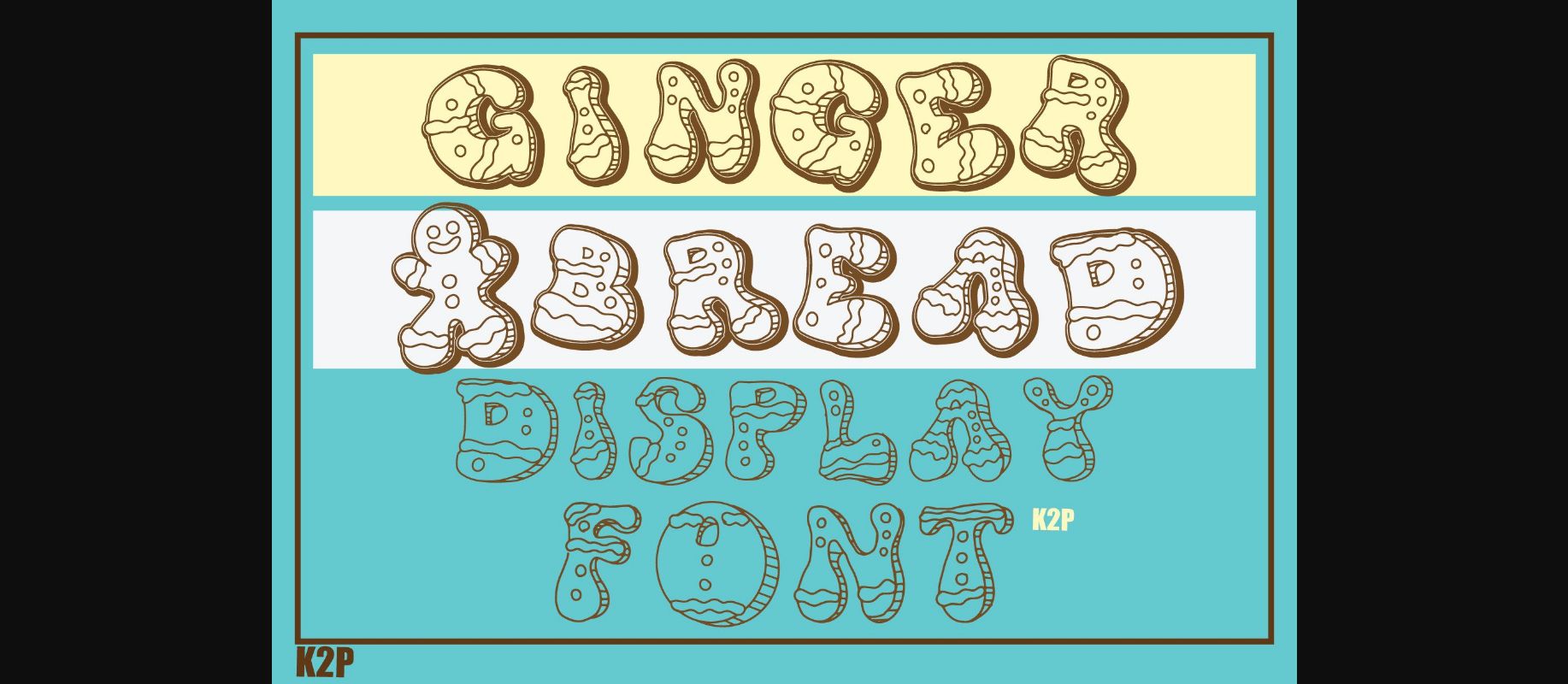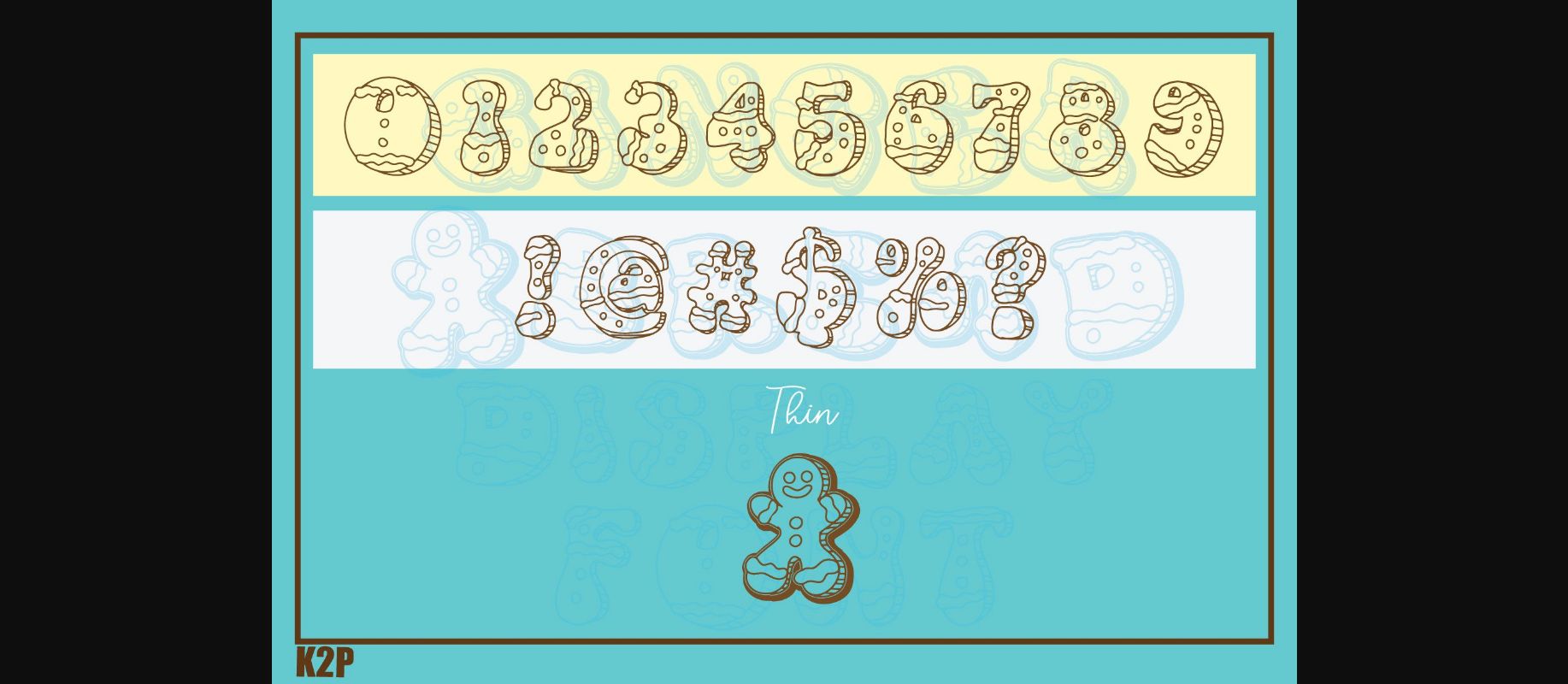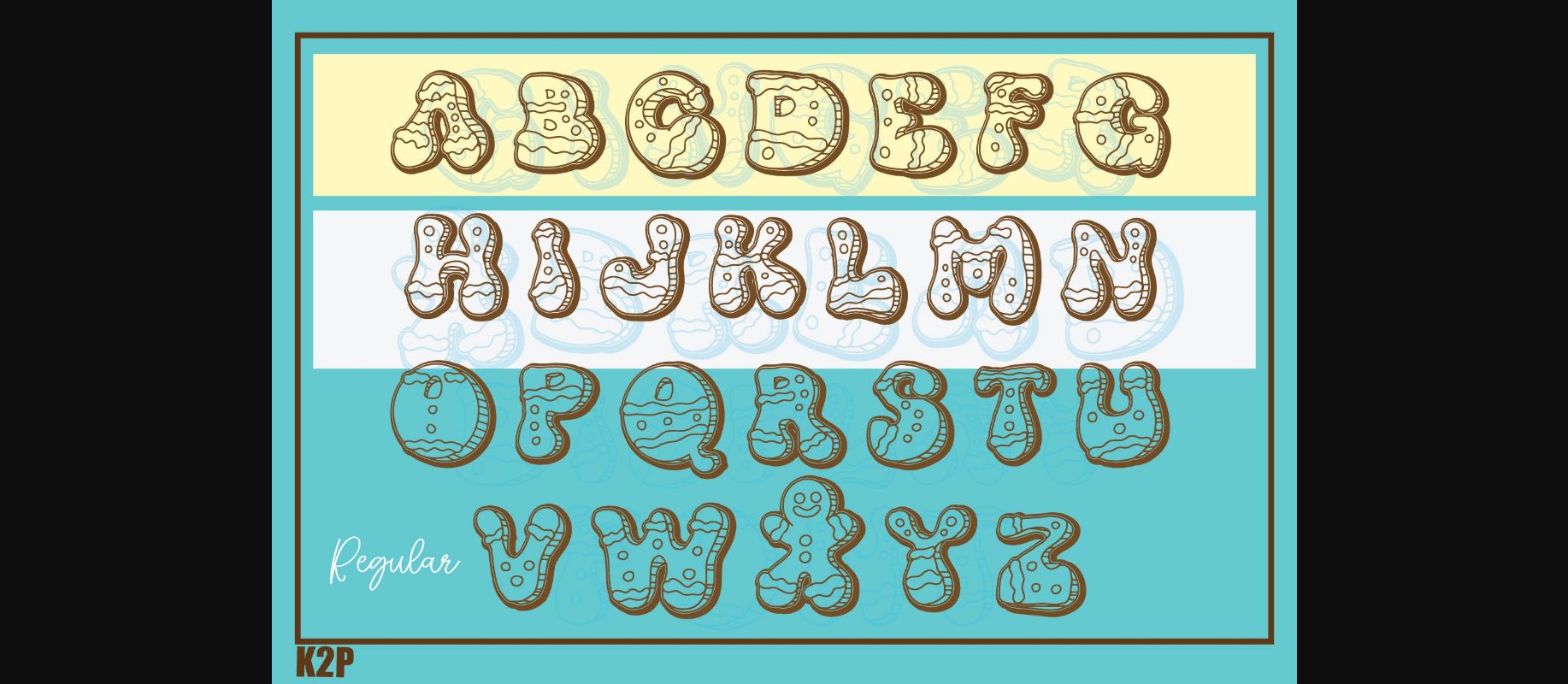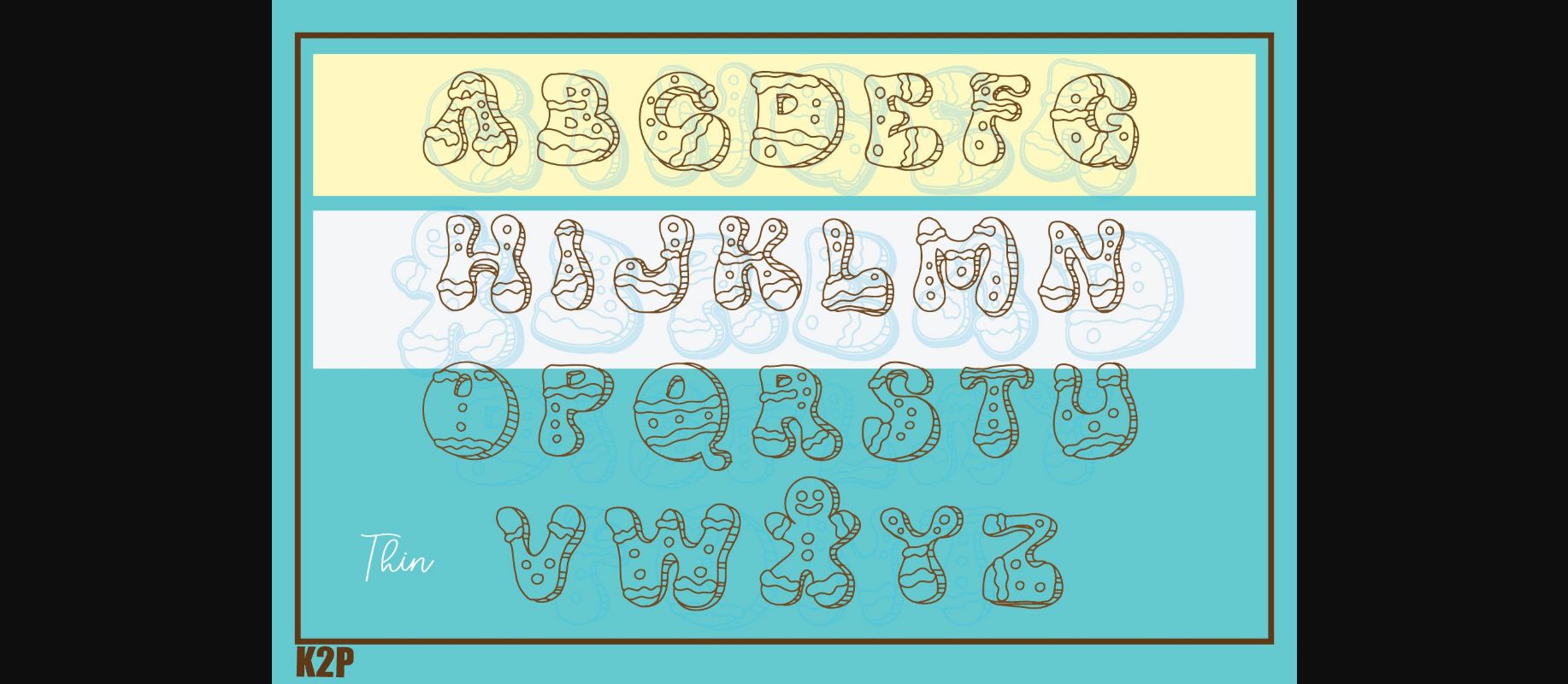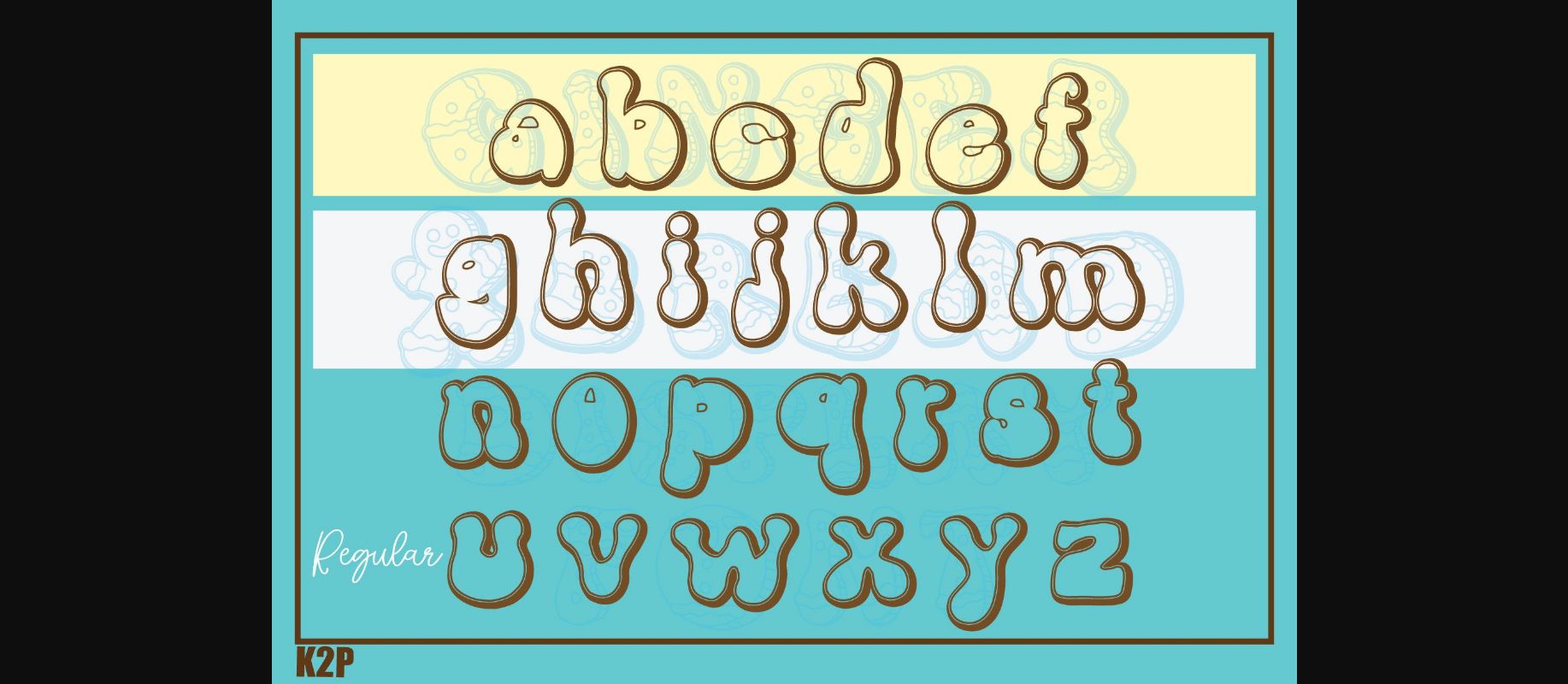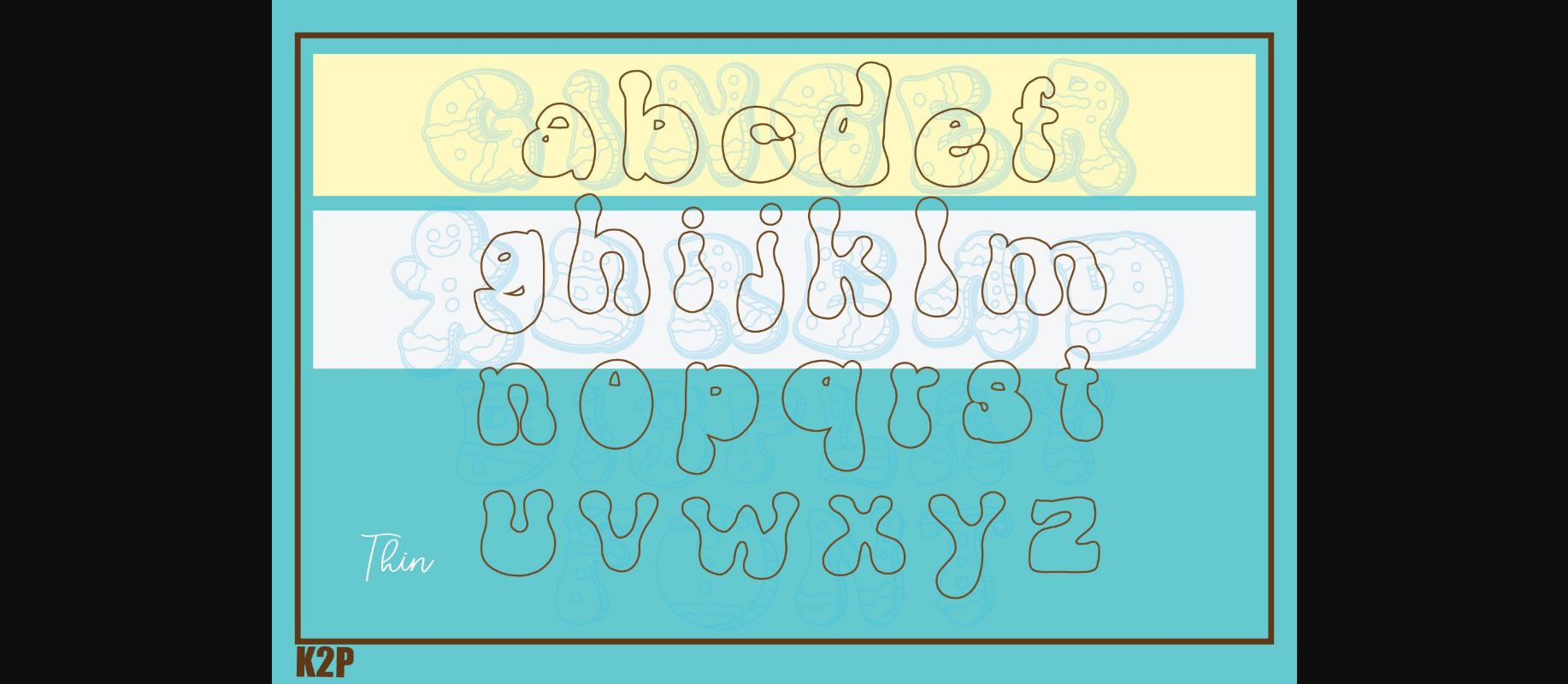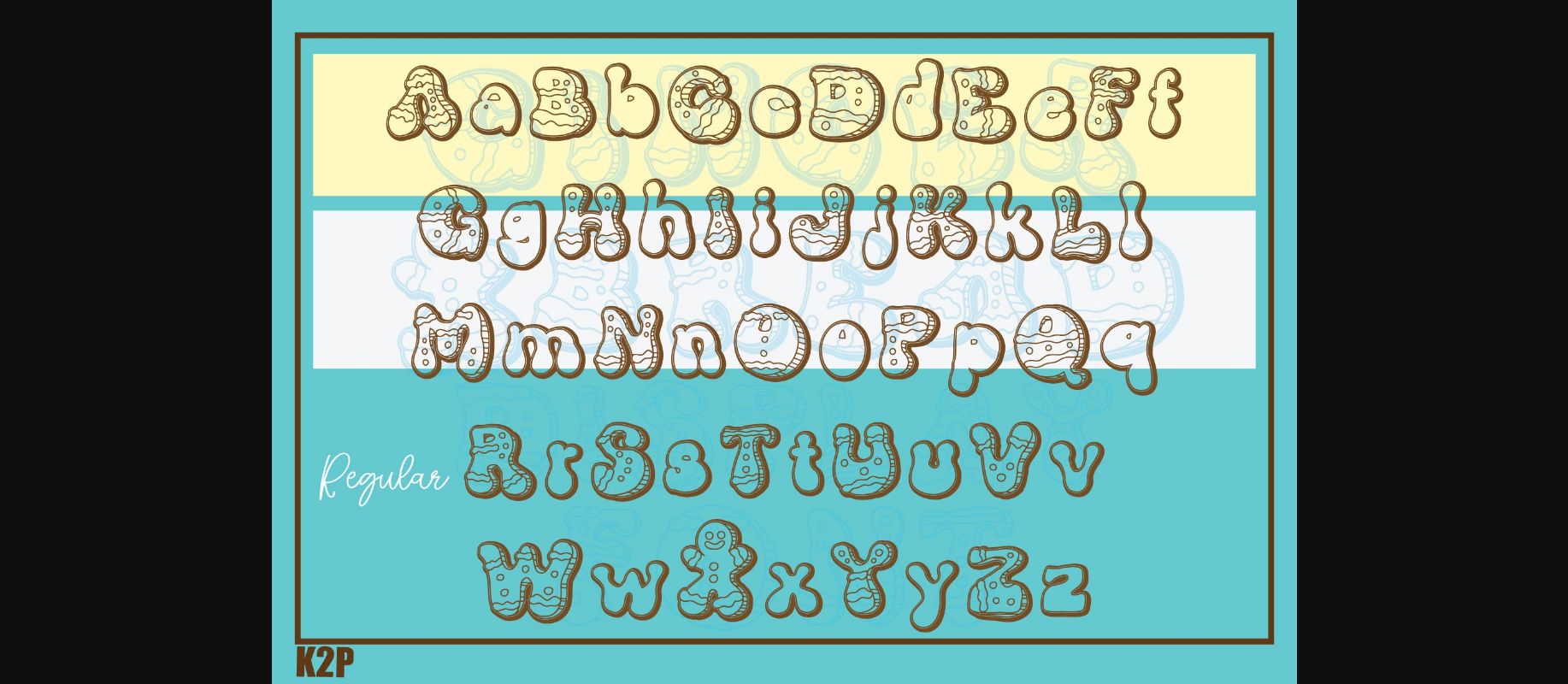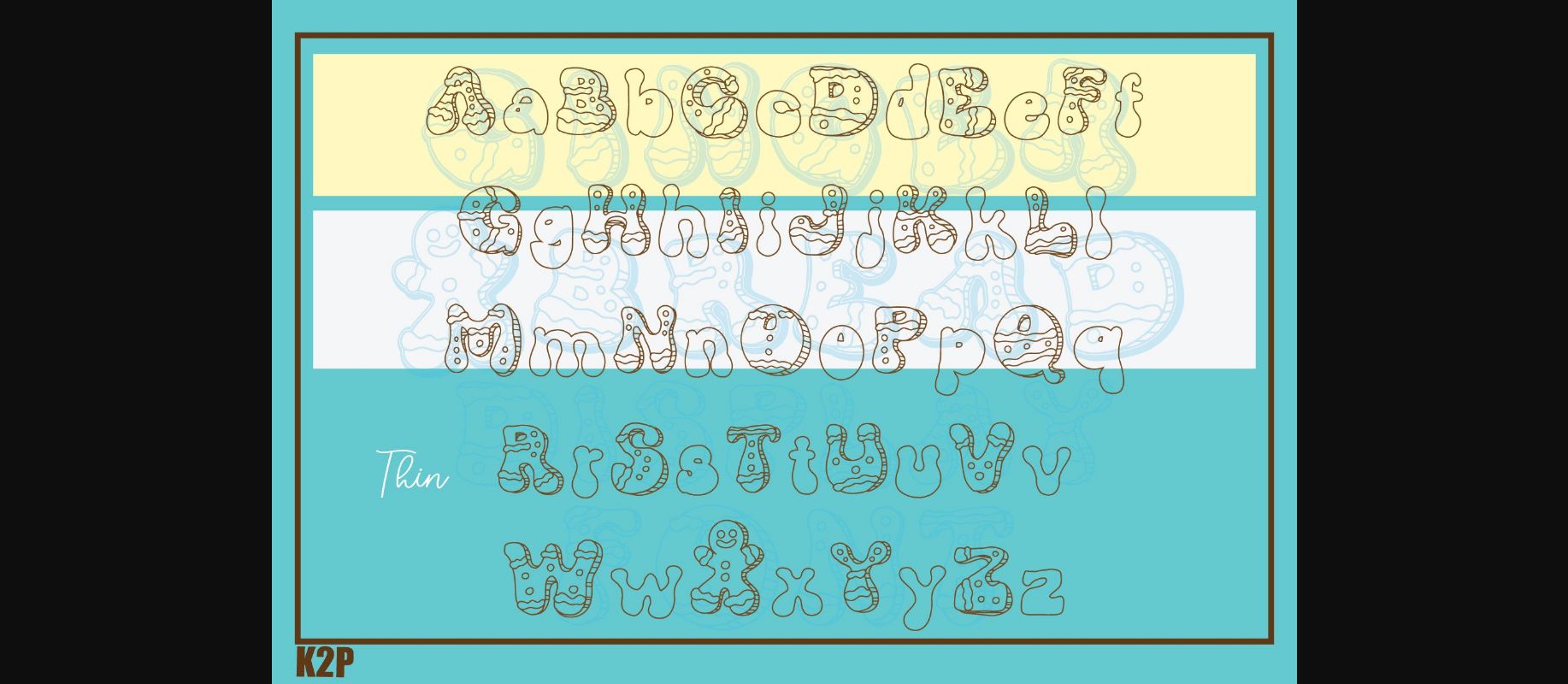
HomeDecorative FontsGinger Bread Font Decorative Fonts Ginger Bread Font FacebookXPinterestWhatsApp 1 of 11 ... Ginger Bread Font Poster 2... Ginger Bread Font Poster 3... Ginger Bread Font Poster 4... Ginger Bread Font Poster 5... Ginger Bread Font Poster 6... Ginger Bread Font Poster 7... Ginger Bread Font Poster 8... Ginger Bread Font Poster 9... Ginger Bread Font Poster 10... Ginger Bread Font Poster 11... About Ginger Bread Font Ginger Bread is a fun, festive, and incredibly unique decorative font. It can be used for various design ideas, particularly those related to the Christmas Holiday. DOWNLOAD NOW People also explored Araulga Laudery Font Sour Banana Font Aoutoory Dragon Font Camila Ashton – Script Font Duo Simsalabim Fishing Font Kofline Font Rosalia Font Black Quote Font 277 0 TagsGinger Bread Font Previous articleHaunted House FontNext articleGroovy Cat Font LEAVE A REPLY Cancel reply Comment: Please enter your comment! Name:* Please enter your name here Email:* You have entered an incorrect email address! Please enter your email address here Website: Save my name, email, and website in this browser for the next time I comment. Personal Use Free Darla Personal Use Free Read more about this font Morning Miow Personal Use Free Read more about this font Girl Personal Use Free Read more about this font Sui Genesis Personal Use Free Read more about this font BLOG How to Cut Any Font on Cricut: Convert a Font to SVG (Free) Turn any font into a clean SVG so it cuts crisp on Cricut - a quick 3-step workflow using a free font-to-SVG tool. The 10 Best Handwriting Fonts to Add Personality to Your Designs To increase your work productivity, choose the most readable fonts. Fonts That Capture the Spirit of New York City